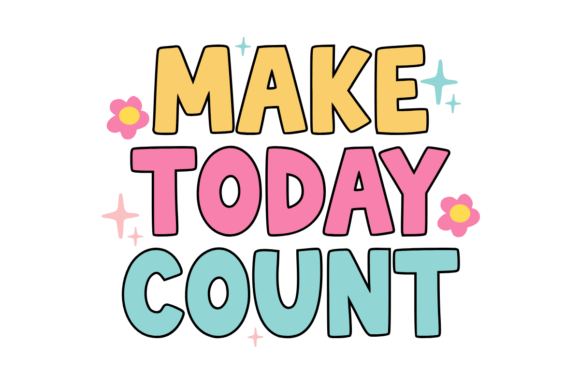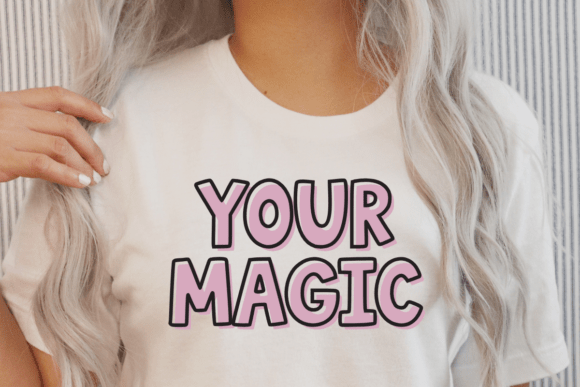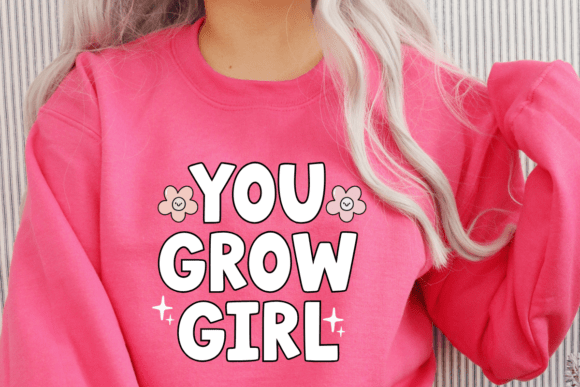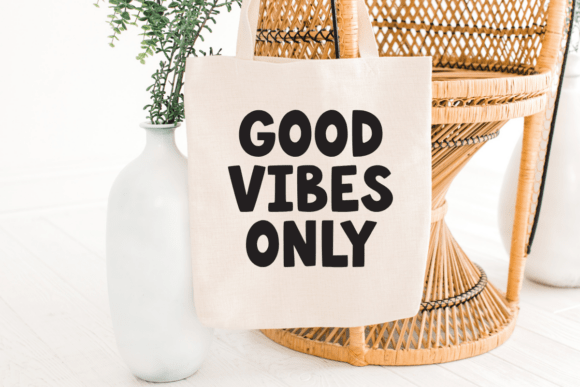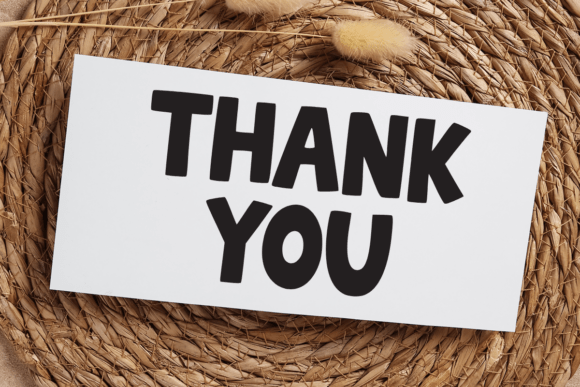
Introduction to House Playful Font
Have you ever stumbled upon a design resource that instantly sparks your creativity and sets your imagination on fire? That’s exactly what happened when I discovered the House Playful Font, a delightful display font that embodies the warmth and love of familial bonds. Its soft, rounded contours and ebullient rhythm make it an idyllic choice for a wide range of creative projects, from personalized treasures to enchanting nursery decorations.
Whether you’re a seasoned designer or a budding enthusiast, the House Playful Font offers a unique touch that’s sure to elevate your Mother’s Day designs. With crystal-clear legibility, adaptability, and multilingual support, this high-quality font is a valuable addition to any design arsenal. Plus, it’s free to download, making it an accessible and transparent background for your creative project.
Key Features of House Playful Font
- Unique and playful design ideal for creative projects, perfect for adding a touch of fun to your design resource.
- Transparent background, allowing for seamless integration into any design, whether it’s a logo, poster, or social media graphic.
- Supports a wide range of languages, making it a versatile design resource for global projects.
- Features a large character set, including uppercase and lowercase letters, numbers, and punctuation marks, making it a comprehensive design solution.
- Available in various font sizes and resolutions, ensuring that it looks great on any screen, from small mobile devices to large digital displays.
Honest Review: House Playful Font
As a designer, I’m always on the lookout for high-quality fonts to add some flair to my creative projects. I recently stumbled upon the House Playful Font, and I’m excited to share my honest review.
- Beautifully crafted with intricate details and a playful feel.
- Perfect for adding a touch of whimsy to your design projects, from logos to posters.
- Includes a transparent background, making it easy to integrate into your design.
- Limited character set, which may not be suitable for longer text-based projects.
- No bold or italic variations, which may limit its use in certain contexts.
Overall, the House Playful Font is a great addition to any designer’s toolkit. While it may have some limitations, its unique charm and high-quality design make it a valuable resource for creative projects. Whether you’re designing a logo, poster, or social media graphics, this font is sure to add some personality to your work.
House Playful Font
The House Playful Font is a high-quality design resource ideal for creative projects. It’s available for free download and comes with a transparent background, making it versatile for various applications.
To get the most out of House Playful Font, use it in conjunction with other design elements to create a cohesive and playful look. Experiment with different font sizes, colors, and styles to add depth and interest to your design.
The House Playful Font is ideal for various creative projects, including social media graphics, blog posts, and marketing materials. It’s also suitable for use in children’s educational materials, party invitations, and other fun and playful designs.